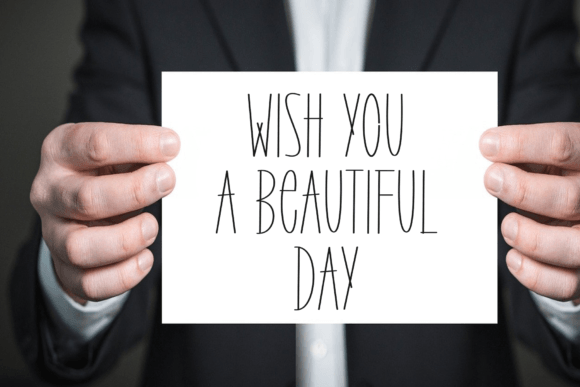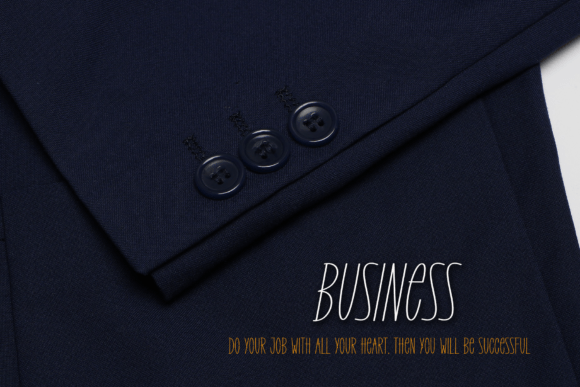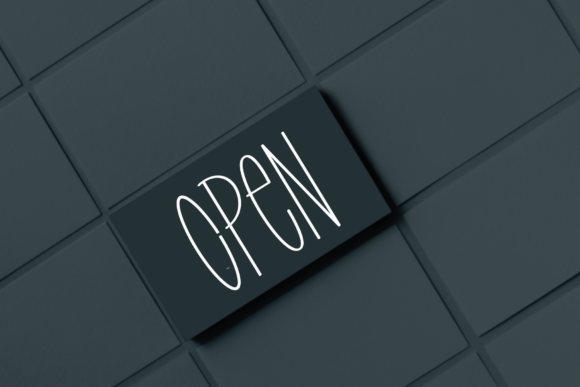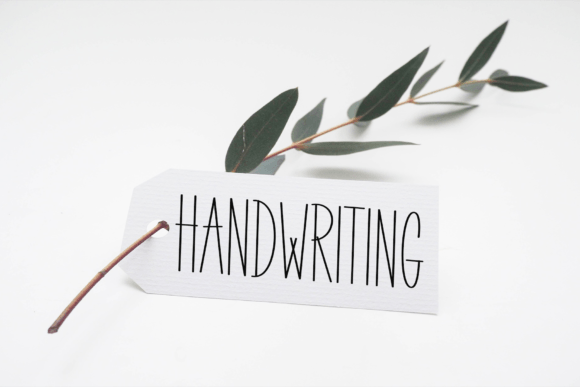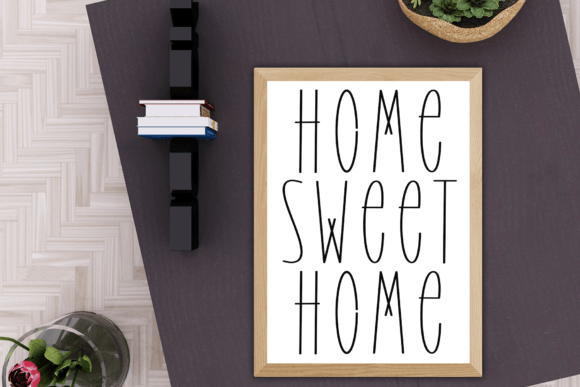
Introduction to Saturday Morning Font
Do you remember those carefree mornings spent sipping hot chocolate and planning out your next creative project? The feeling of excitement and possibility is still with us today, and it’s the perfect inspiration for a new design resource: the Saturday Morning Font.
As a designer, you’re always on the lookout for the perfect combination of style and functionality. That’s why we’re excited to introduce you to the Saturday Morning Font, a sweet and friendly handwritten font that’s sure to add a touch of whimsy to any design. With its fresh and casual vibe, this font is ideal for writing wedding invitations, cards, or any other design that needs a lovely touch.
Whether you’re looking for a free download or a high-quality font to elevate your next project, the Saturday Morning Font is a valuable addition to any designer’s toolkit. Its transparent background and versatile design make it easy to use and customize, and its unique charm is sure to set your designs apart from the rest.
Key Features of Saturday Morning Font
- High-quality design: This font is crafted with attention to detail, making it perfect for creative projects that demand a professional touch.
- Transparent background: The transparent background of this font allows for seamless integration with various design elements, giving you complete creative control.
- Large character set: Saturday Morning Font includes a comprehensive character set, including uppercase and lowercase letters, numbers, and punctuation marks.
- Unique design style: Saturday Morning Font features a distinctive design style that’s perfect for adding a touch of whimsy and personality to your creative projects.
Honest Review: Saturday Morning Font
As a designer, I’m always on the lookout for unique and high-quality design resources to elevate my creative projects. Recently, I stumbled upon the Saturday Morning Font, and I’m excited to share my honest review.
What works well about this font is its playful and nostalgic vibe, reminiscent of classic cartoons and Saturday morning cartoons. The font is perfect for projects that require a fun and carefree tone. The high-quality design and transparent background make it easy to use and customize.
- ✨ Unique and nostalgic vibe
- ✨ High-quality design
However, there are a few limitations to consider. The font may not be suitable for formal or professional projects, and it can be a bit too whimsical for some tastes. Additionally, the free download version may not include all the characters and glyphs you need.
- ⚠️ May not be suitable for formal or professional projects
- ⚠️ Limited character set in free download version
Overall, I’m impressed with the Saturday Morning Font and would recommend it to designers looking for a fun and creative solution. While it may not be perfect for every project, it’s a great addition to any design resource library.
How to Use Saturday Morning Font
The Saturday Morning Font is a unique and colorful design resource perfect for adding a playful touch to your creative project. With its high quality and transparent background, it’s easy to incorporate into your design workflow.
To get the most out of the Saturday Morning Font, experiment with different font sizes, colors, and combinations. You can also use it in conjunction with other design elements to create a cohesive look.
The Saturday Morning Font is perfect for designing kids’ party invitations, social media graphics, and educational materials. Its bright colors and playful feel make it ideal for creating engaging and fun designs.